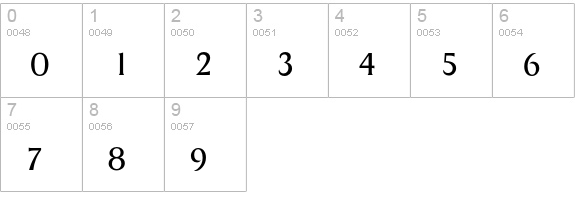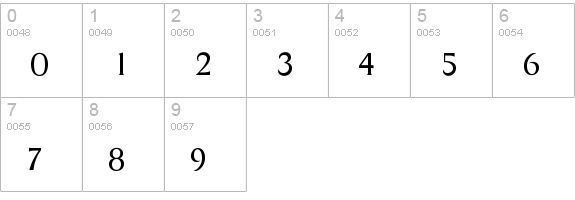
Dragon-Light is a refined, elegant variant in the Dragon typeface family \xE2\x80\x94 well suited to elegant body text, refined sub-headings, and luxury branding.
Introducing Dragon-Light font, a stunning and elegant typeface that will add a touch of magic to your designs. With its sleek lines and intricate details, this font is perfect for creating eye-catching logos, posters, and more. The Dragon-Light font exudes a sense of power and mystique, making it ideal for projects that require a touch of fantasy. Best of all, Dragon-Light font is completely free to download at FontsMarket.com. Whether you're a designer looking to add a unique flair to your work or simply a fan of beautiful typography, this font is sure to impress. Don't miss out on the opportunity to enhance your projects with the mesmerizing Dragon-Light font - download it today for free!